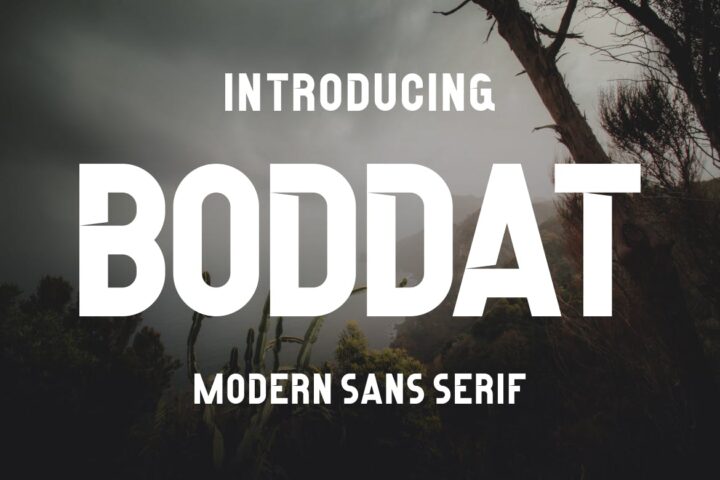
BODDAT Font
Introducing our new product BODDAT Font – Modern Font BODDAT Font** – Modern Font is a bold and authentic display font. The font is suitable for any branding project like logo, t-shirt printing, Product and many more. outstanding in a wide range of contexts.